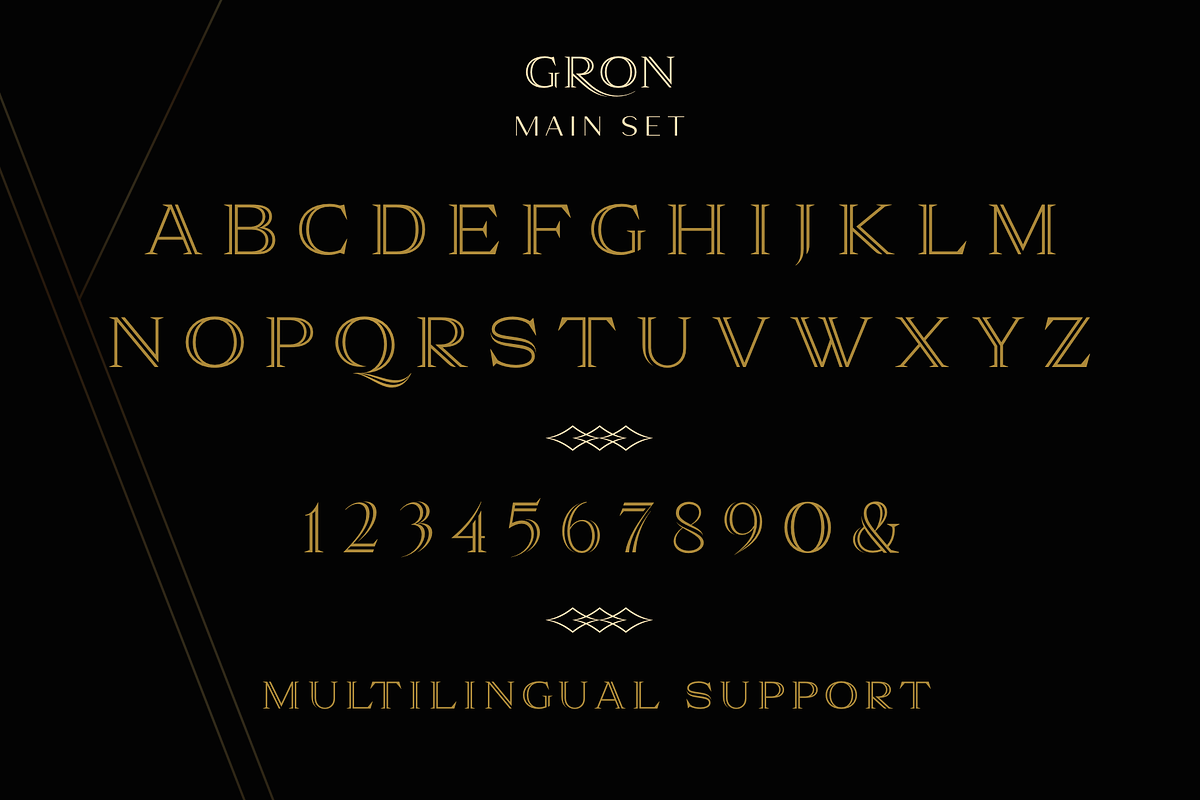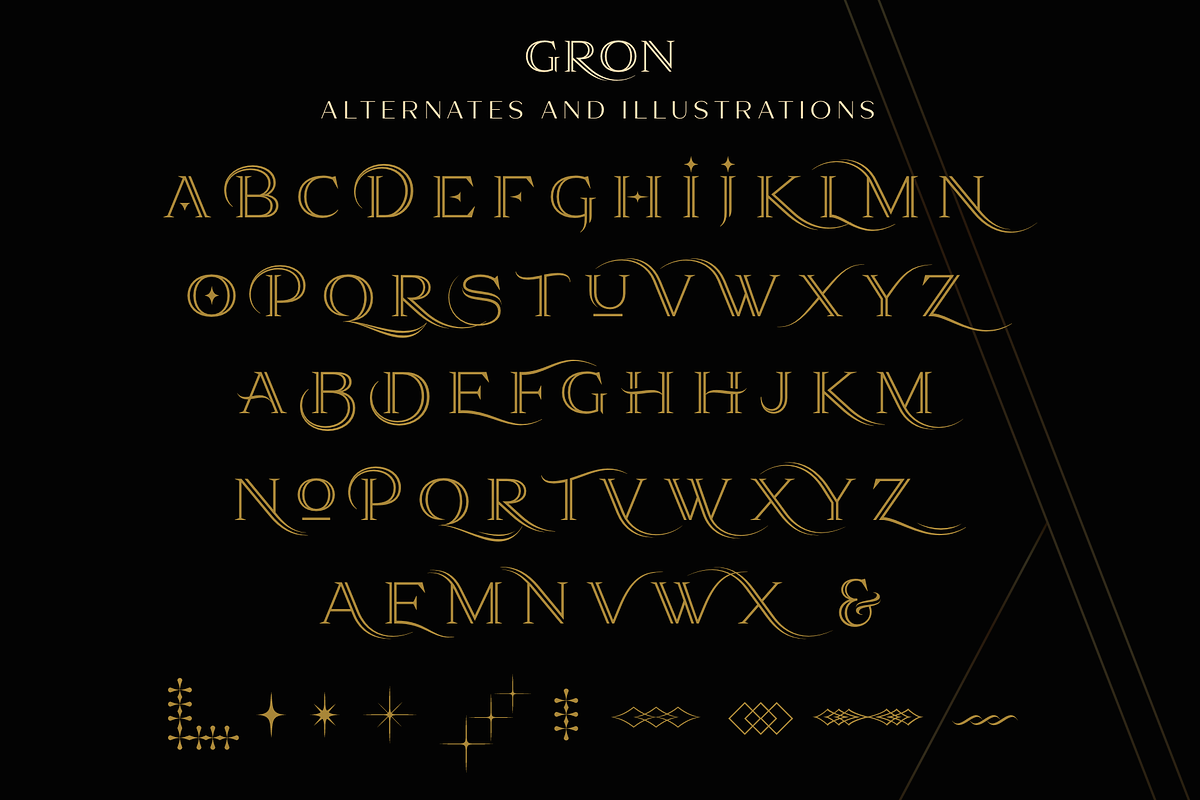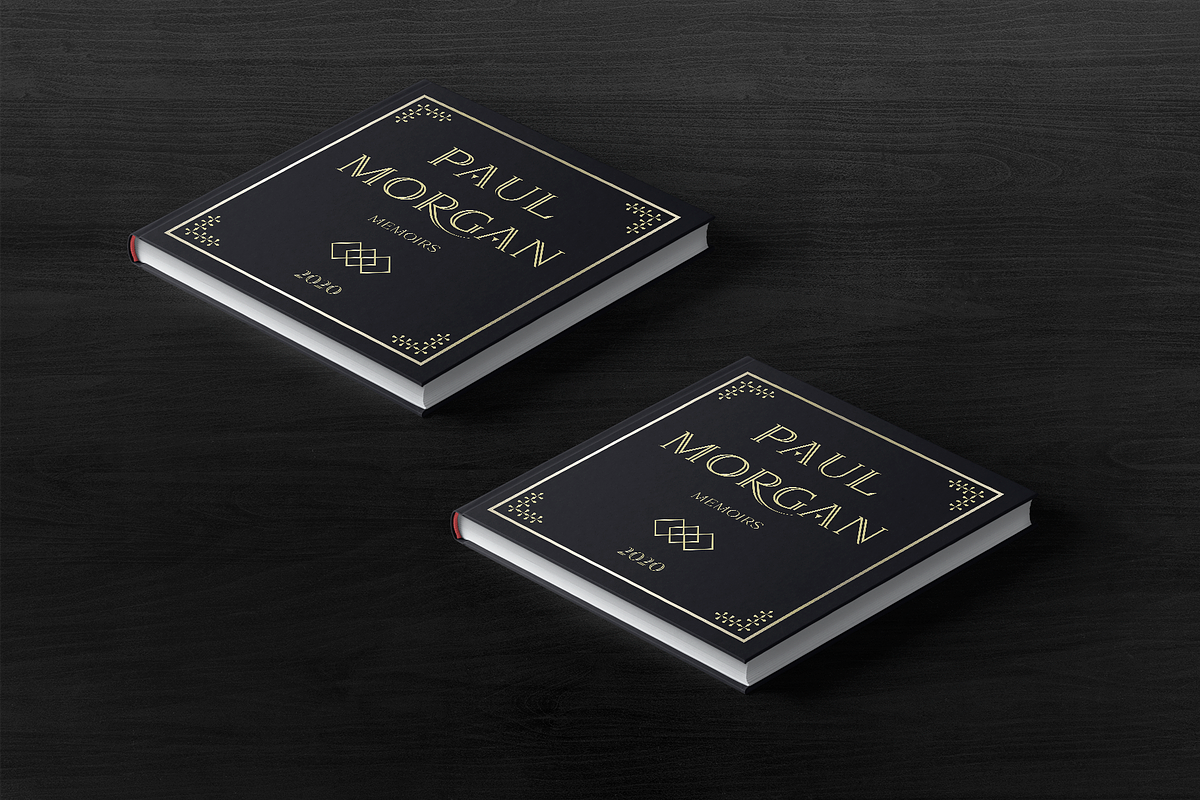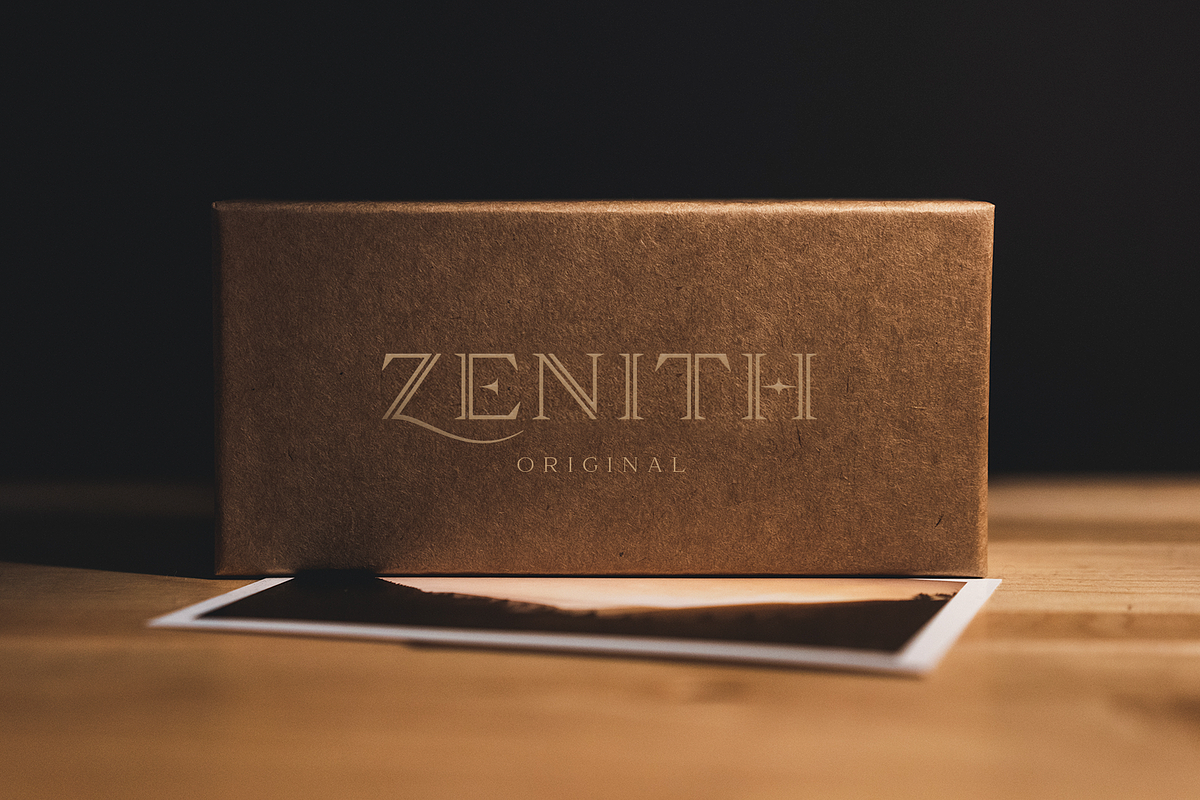
Gron
Gron this is an amazing decorative serif font.
Charming, elegant and attractive, and can also be even more expressive thanks to the alternatives that are included in this font, you can play with them and get a beautiful and harmonious result. with this font, you can make logos, templates, invitations, greetings, book and magazine covers, business cards, branding for your business and much more. Also included in this font are several illustrations that can set the idea for your project.
This font is easy to use and has OpenType features.
Following international symbols support: ÀÁÂÃÄÅĄÇĆÈÉÊËĘÌÍÎÏÐÑŃŁÒÓÔÕÖØÙÚÛÜŚŠŸÝŹŻŽßàáâãäåçèéêëìíîïðñòóôõöøùúûüýÿąćęłńśšźżž